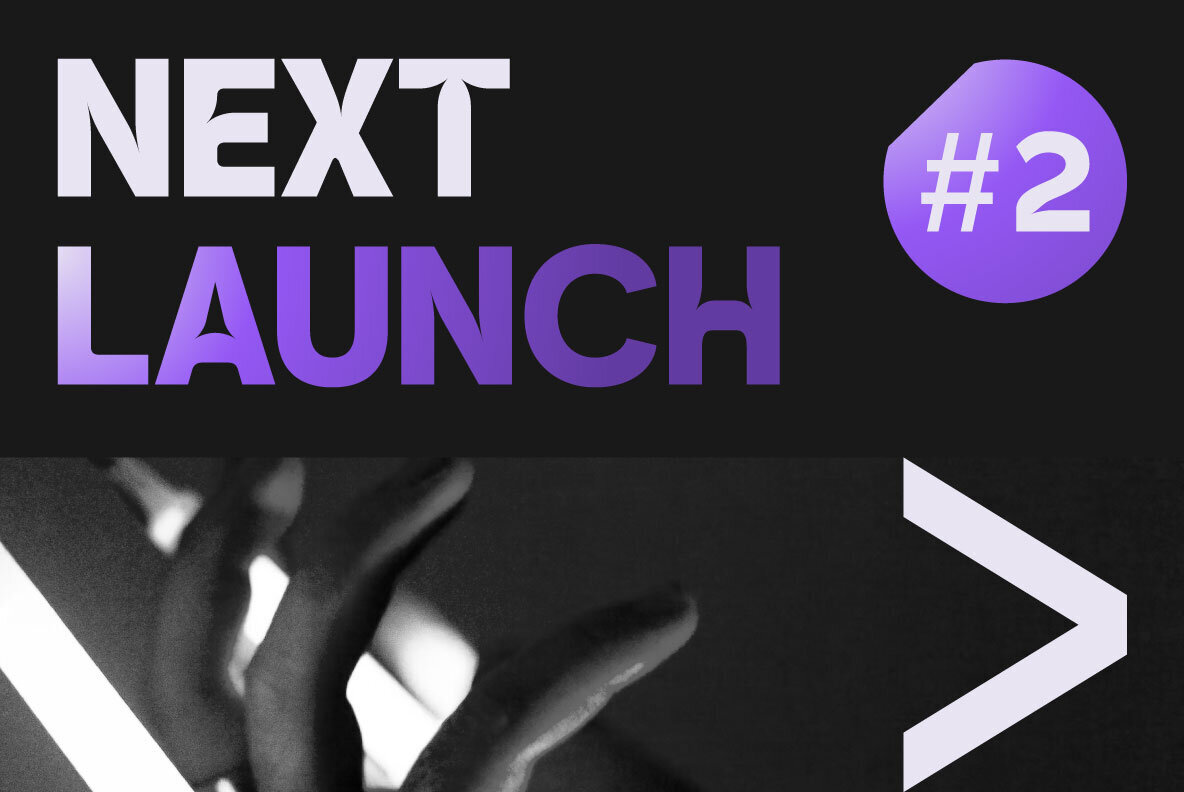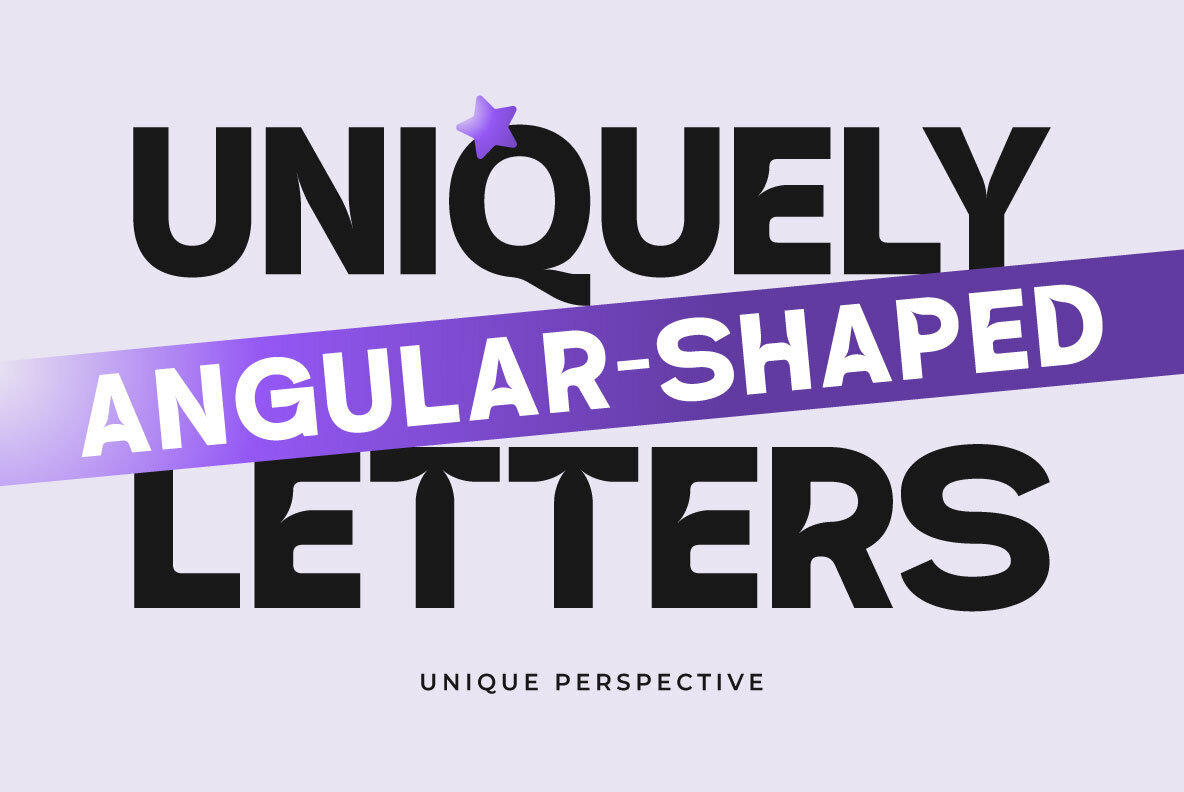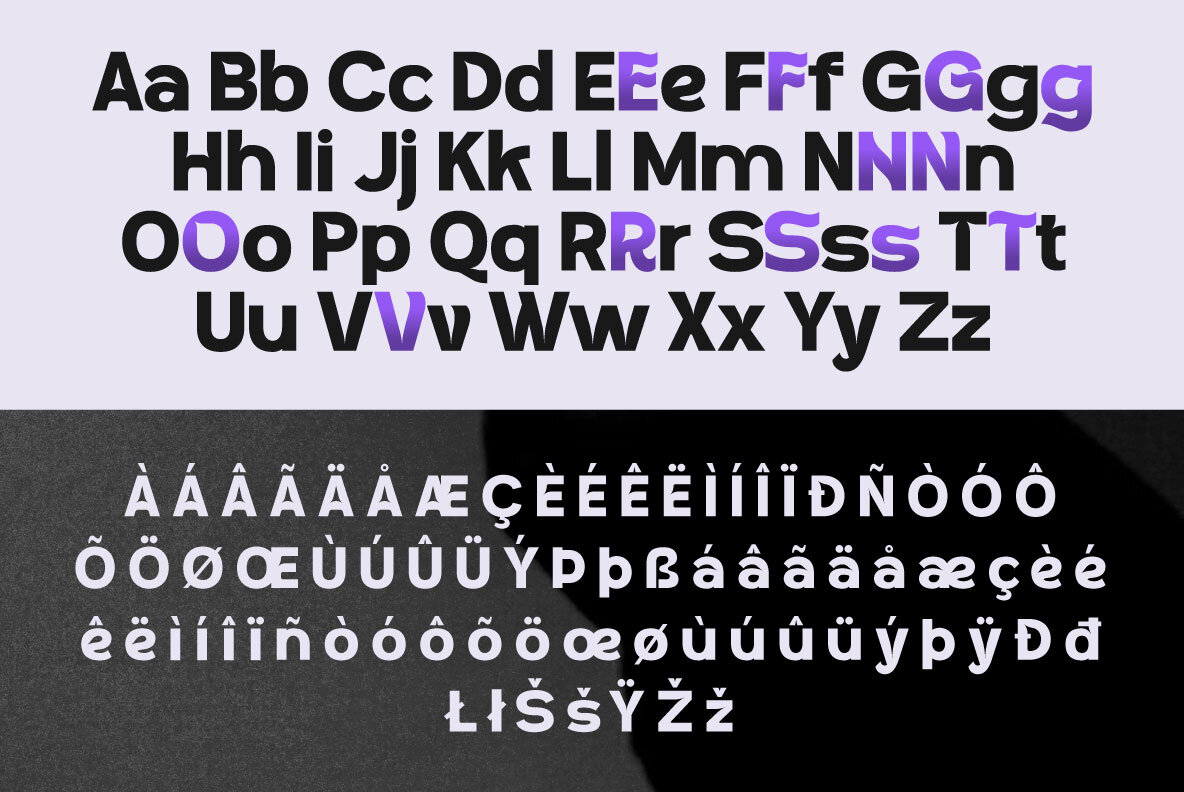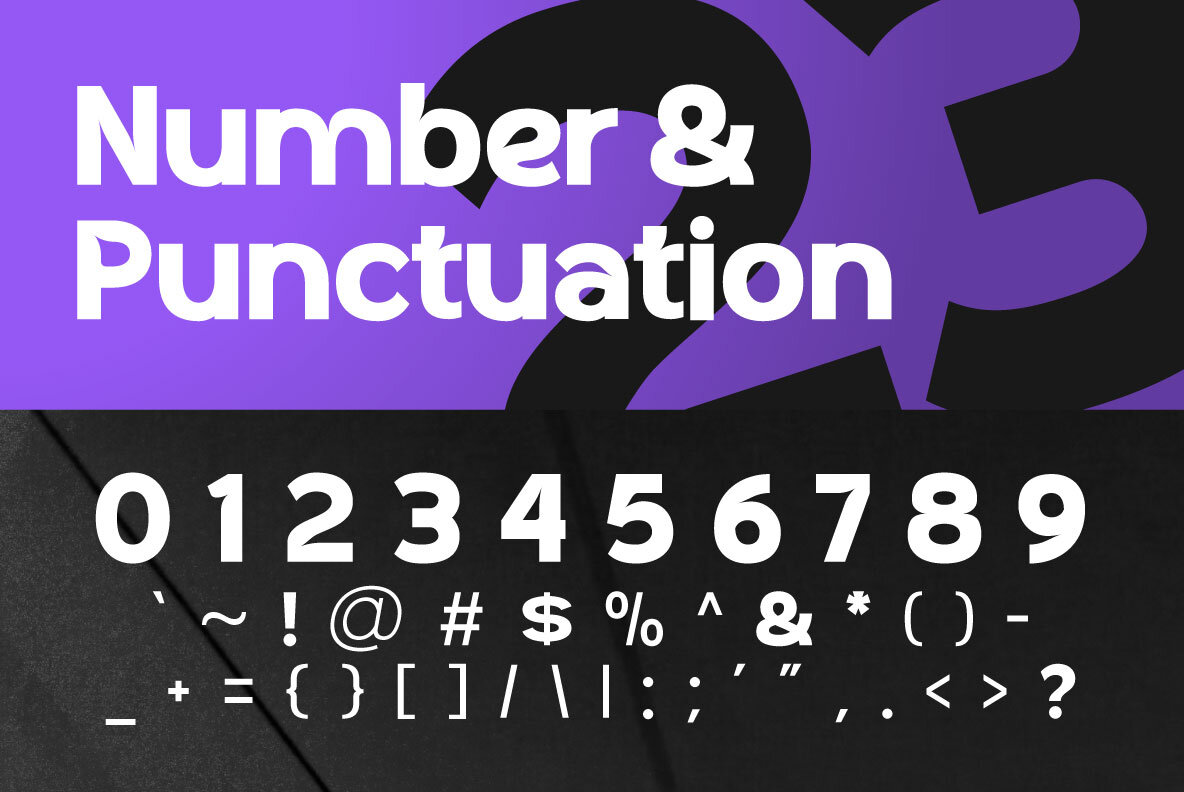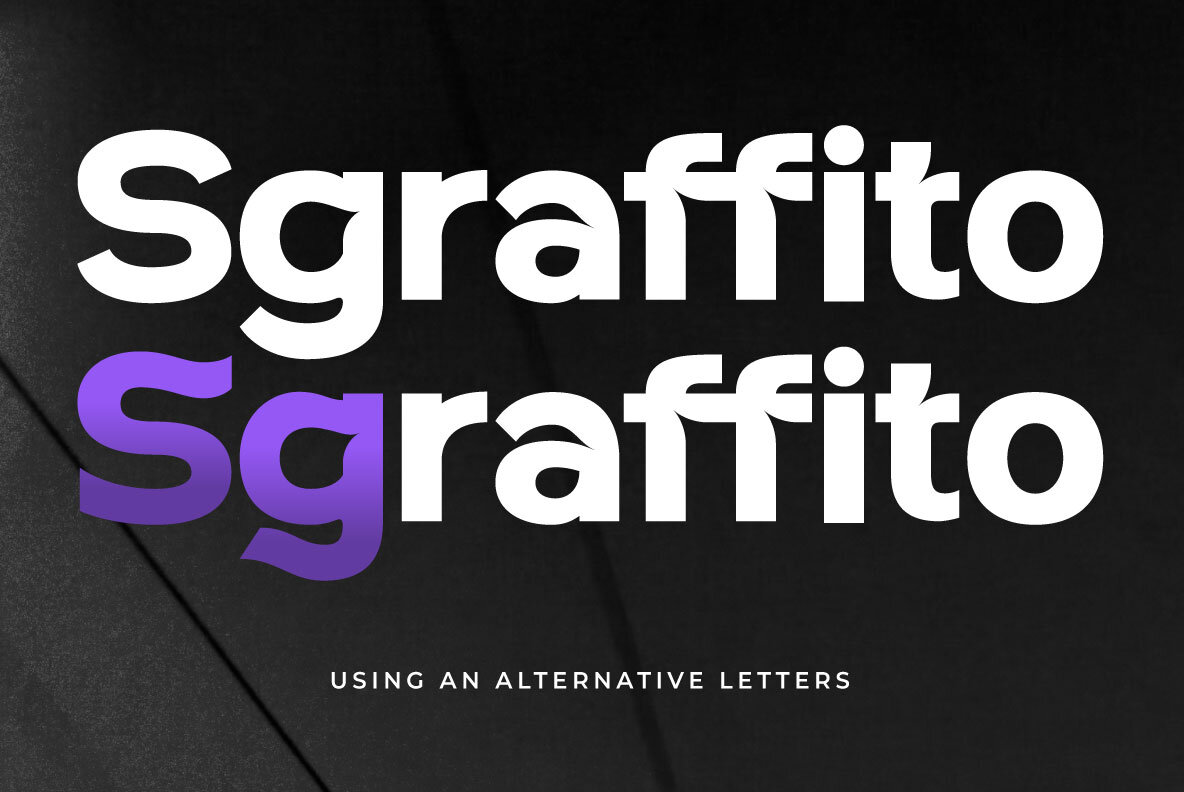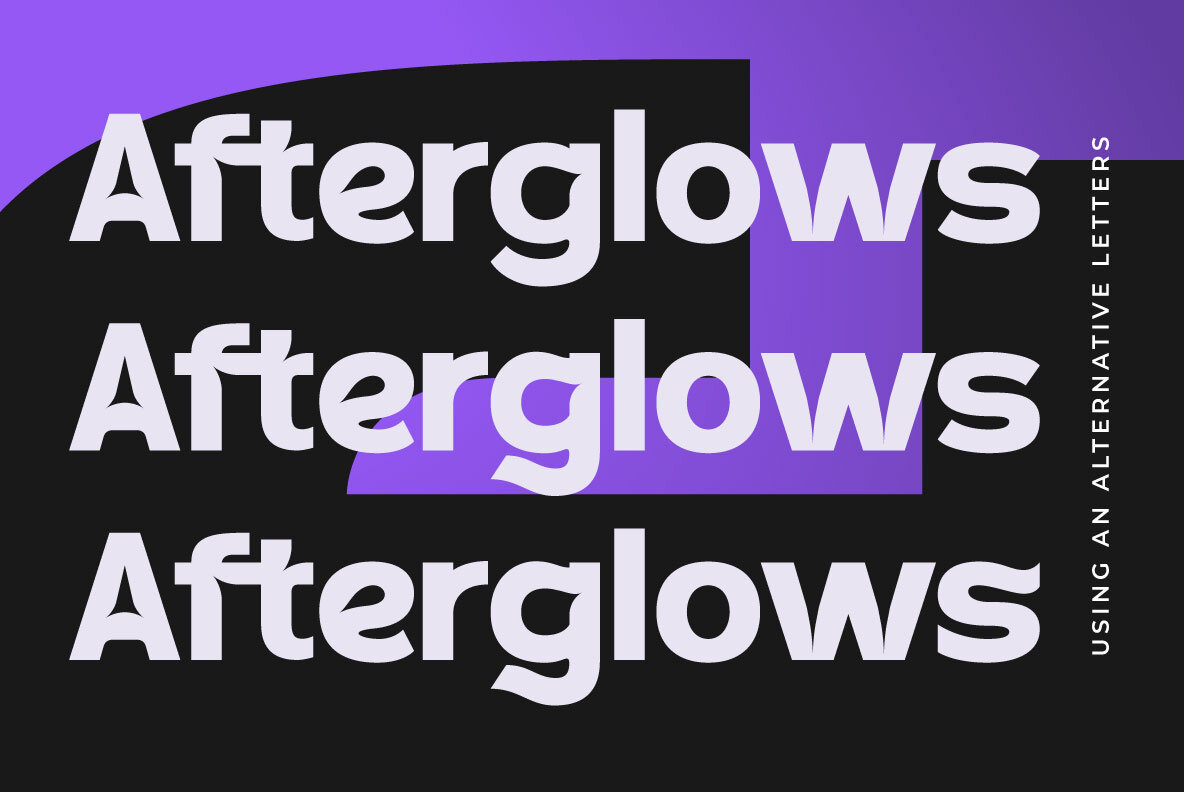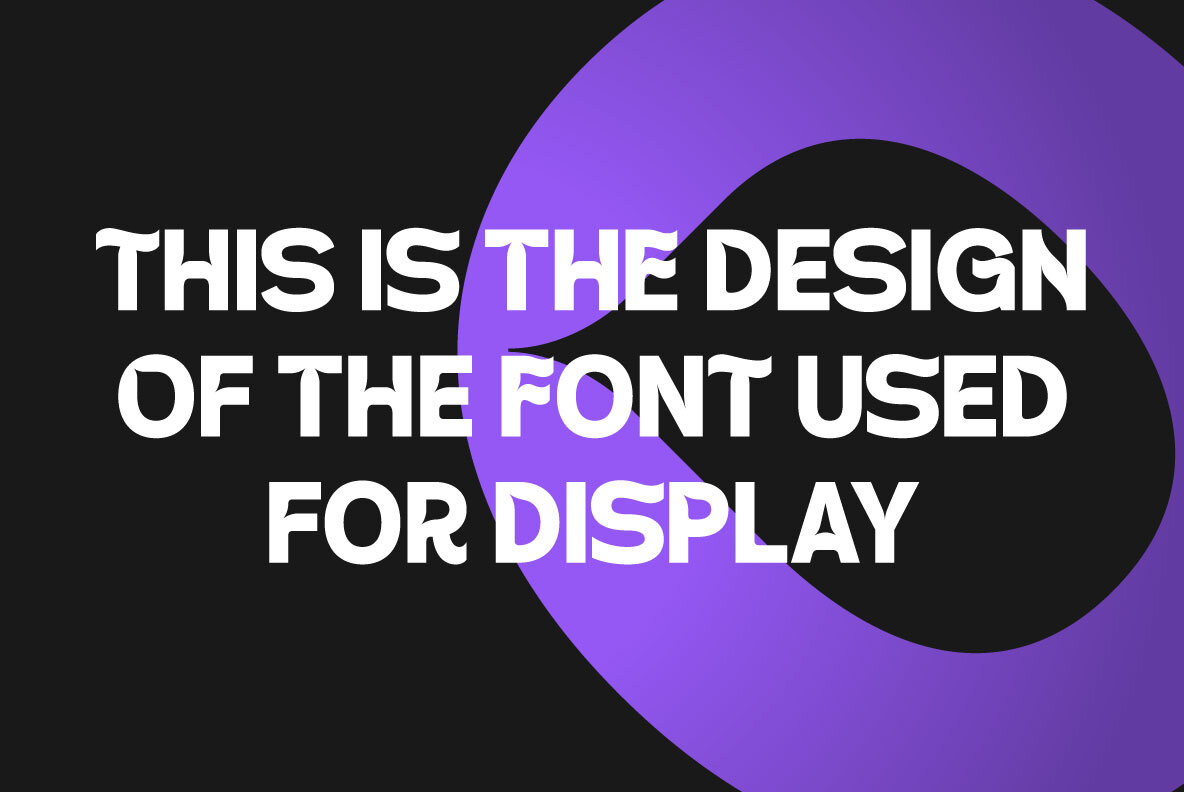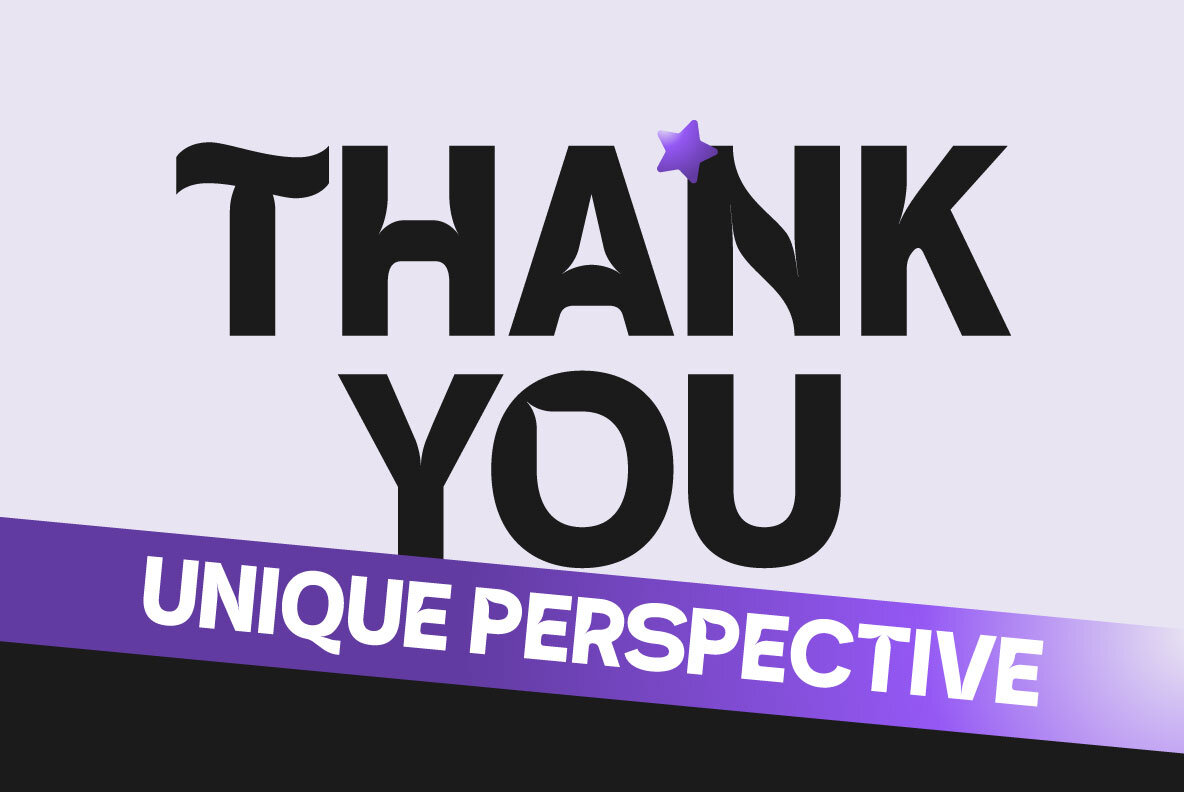
Unique Perspective Font
Unique Perspective Regular
Introducing Unique Perspective, a distinct display typeface that stems from a corner to establish its one-of-a-kind style. Suitable for headline texts, logo designs, and various other creative applications. Unleash your creativity with Unique Perspective!